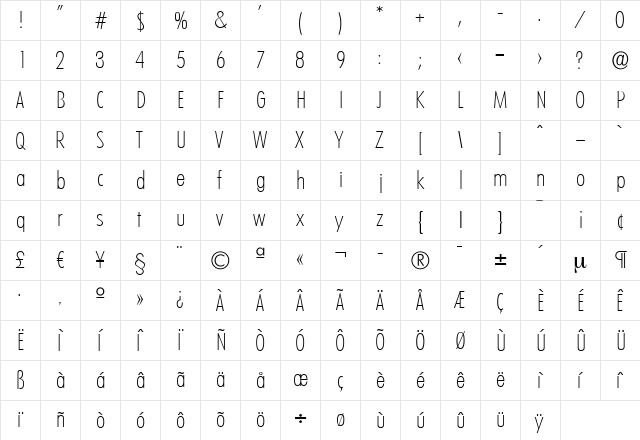
PeterBeckerCond-ExtraLight Regular Font Preview
Design Context for PeterBeckerCond-ExtraLight Typeface
PeterBeckerCond-ExtraLight offers clean, dependable letterforms without strong stylistic allegiance, making it a practical choice for designers who need flexibility. Its slender proportions lend an understated elegance to any composition. Its narrow stance lets it pack a punch even in space-constrained designs.